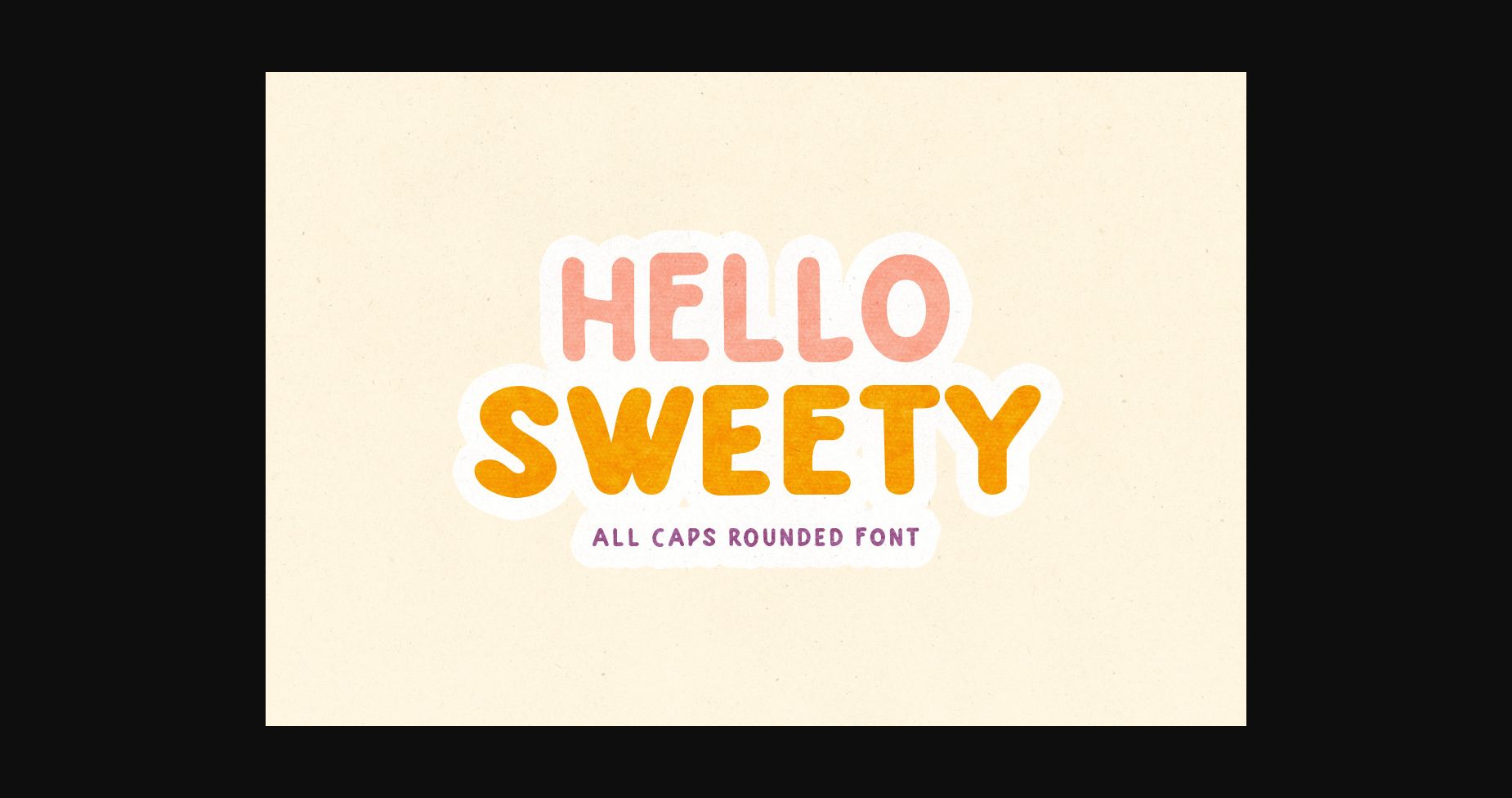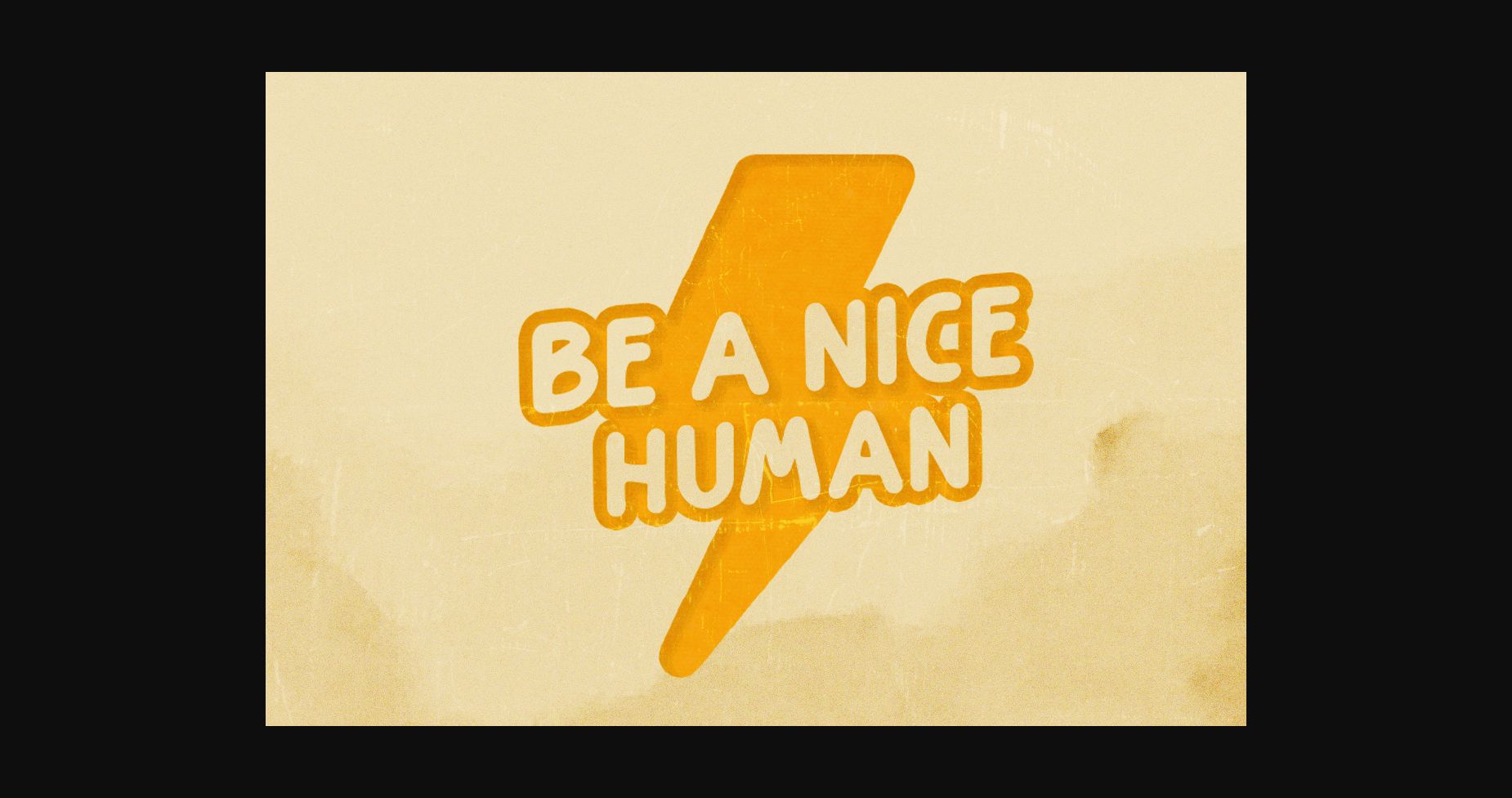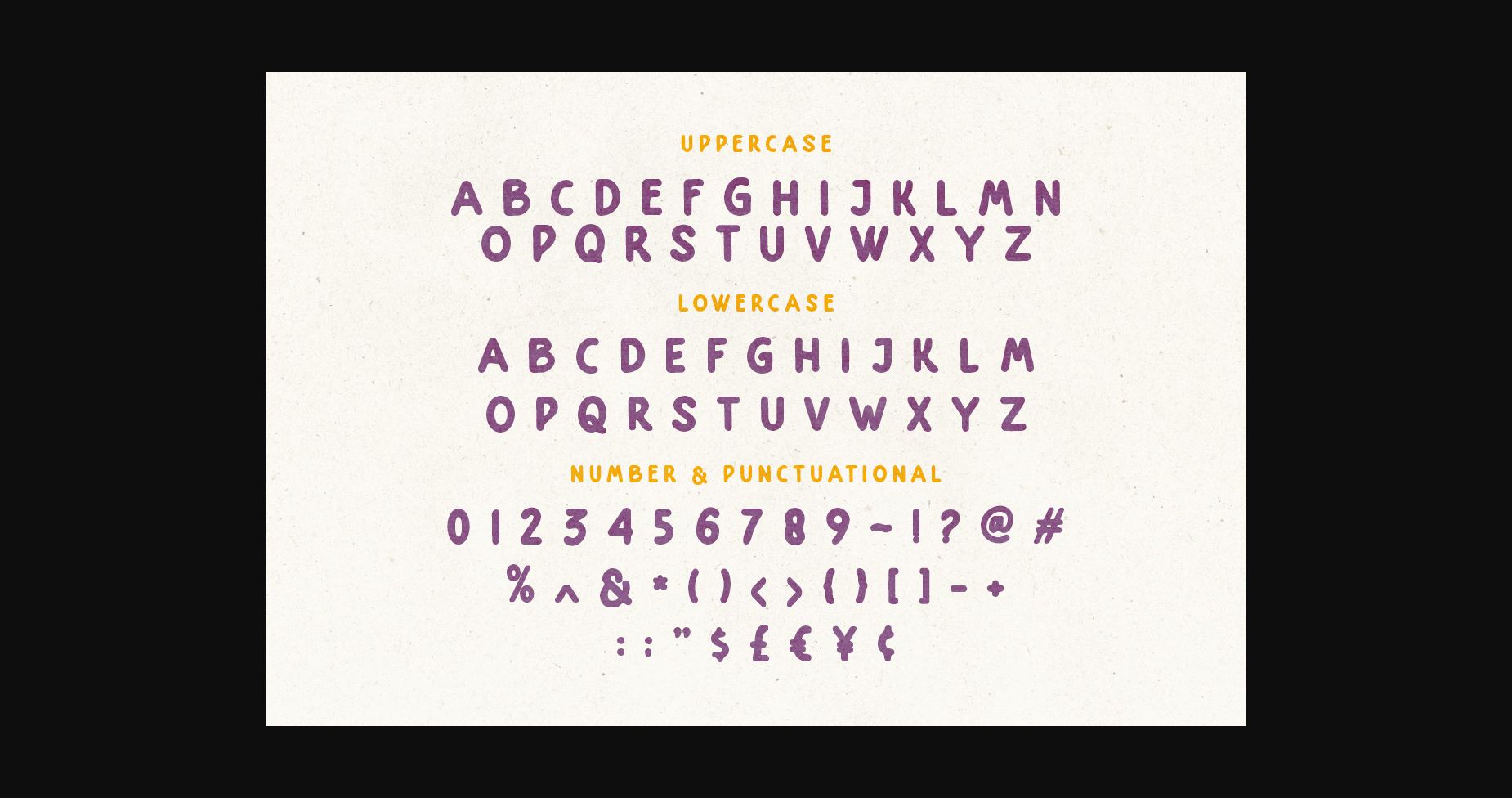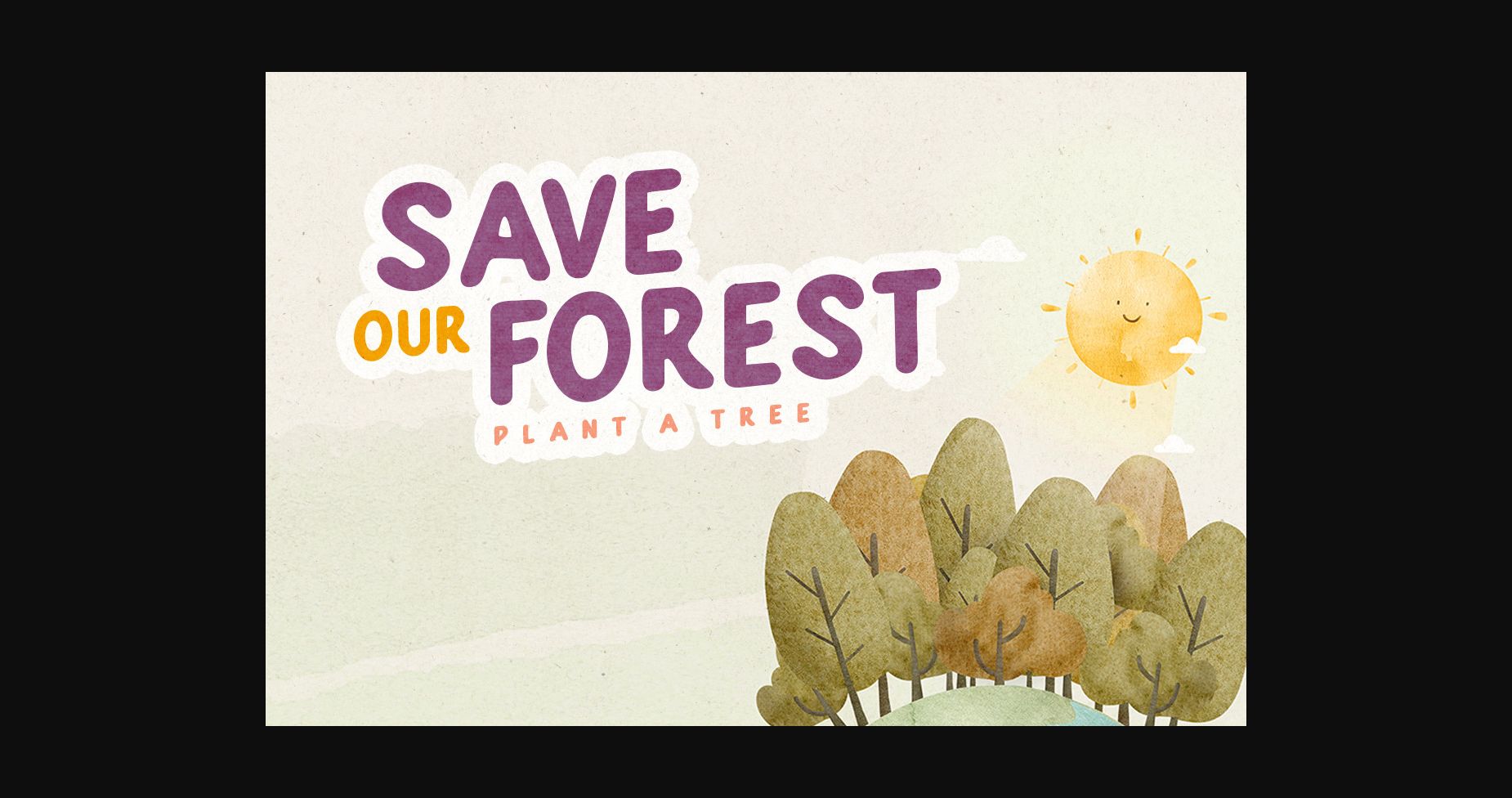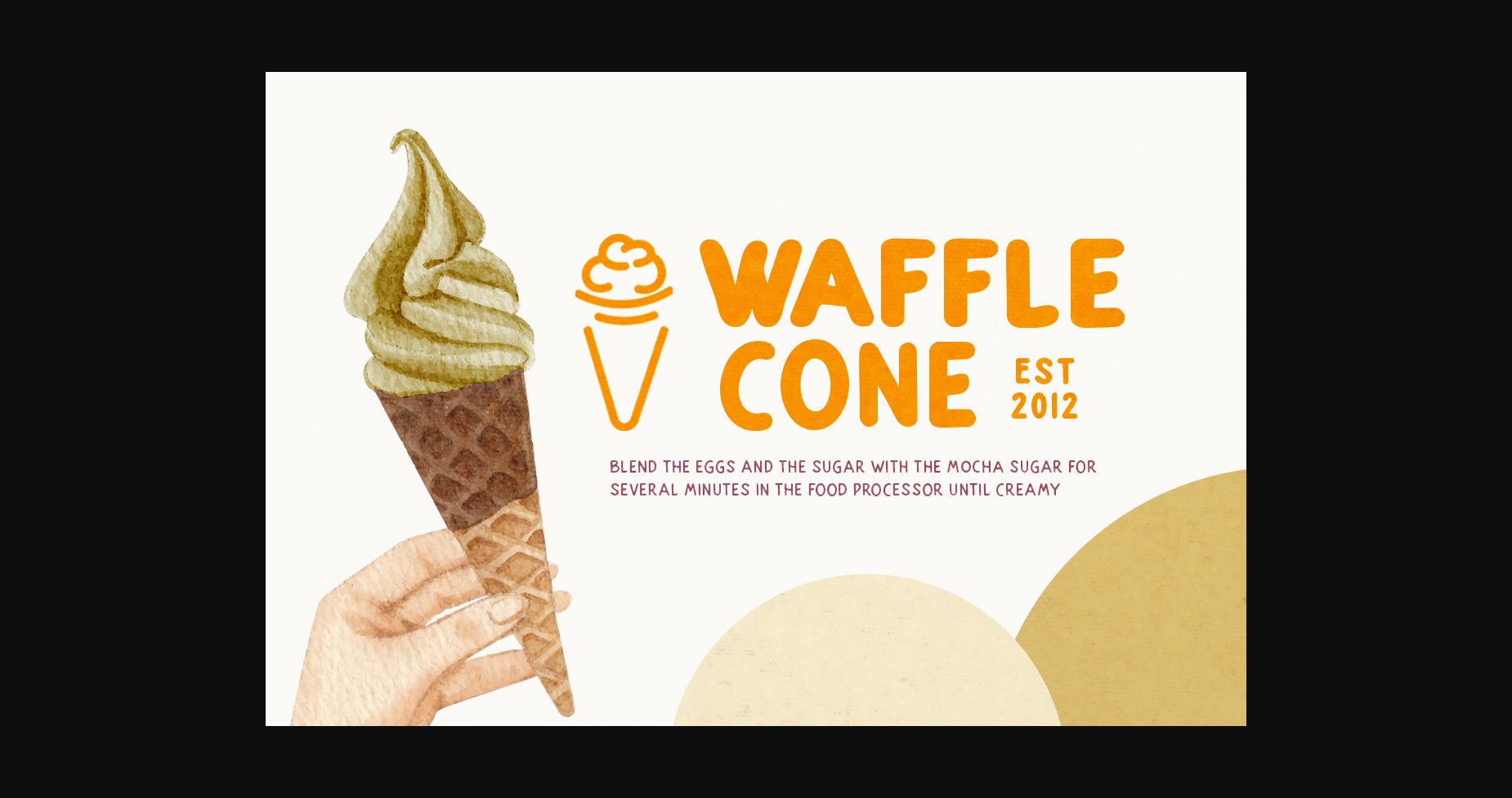
Hello Sweety Font
About Hello Sweety Font
Hello Sweety is a cute and rounded all-caps sans serif font. This font is so friendly and fun that it can be used for any purpose such as logos, brands, and quotes. Have fun with this unique typeface, and explore its endless possibilities!